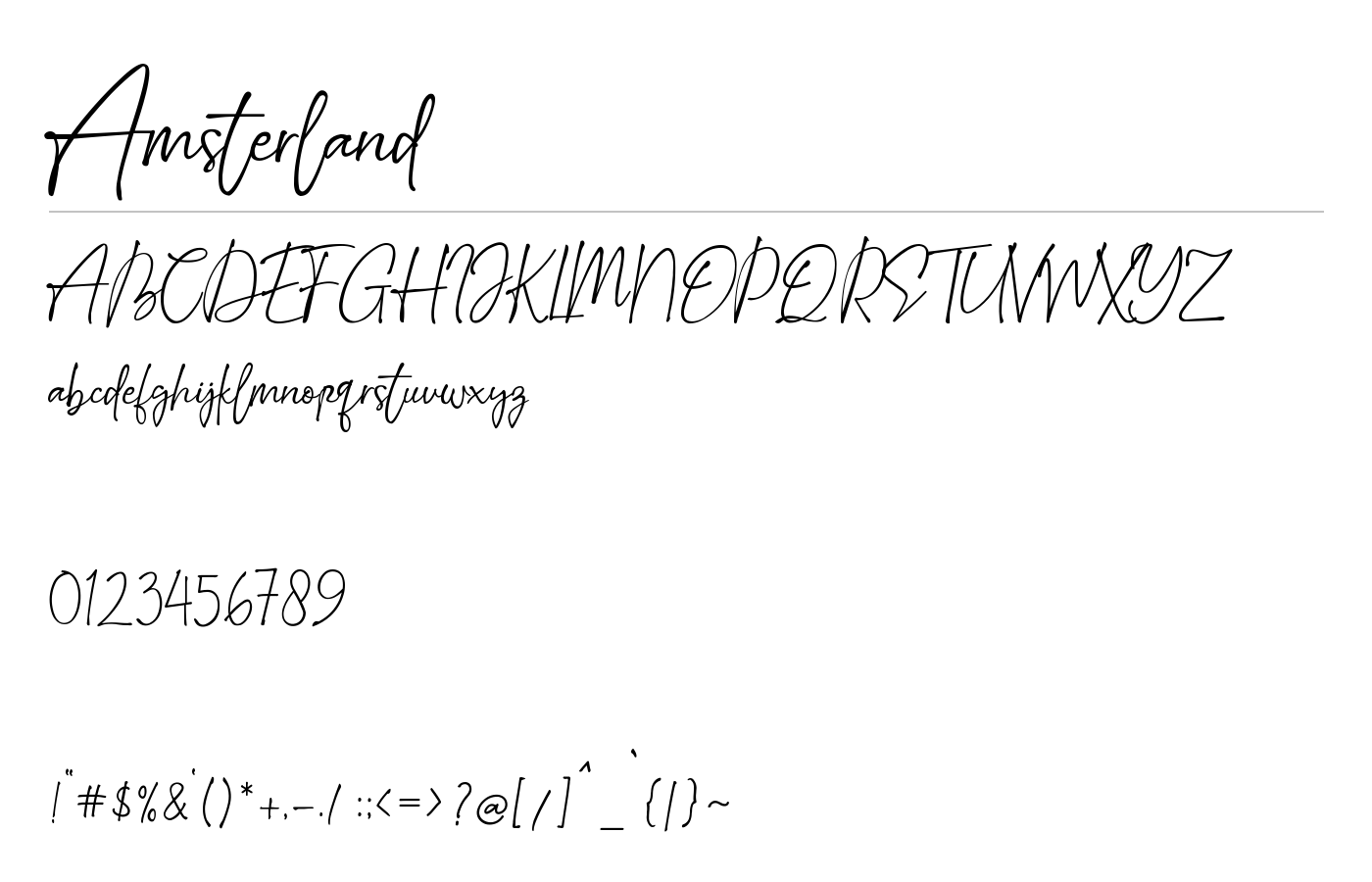
Amsterland is a slender, elegant script font characterized by its delicate, flowing strokes and high contrast between thick and thin lines. It has a modern handwritten style with a natural, slightly whimsical feel, perfect for adding a personal, sophisticated touch to branding, invitations, or editorial design. This font works especially well in stylish logos or headlines where a graceful, intimate aesthetic is desired.
Amsterland Font
About Amsterland Font
| Font family | Amsterland Font |
| Designer | ©Zeenesia 2021 |